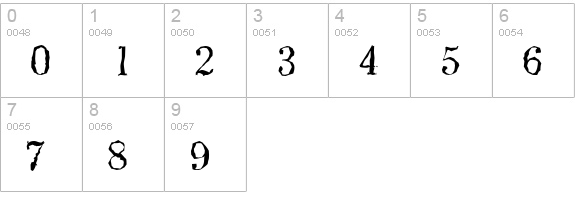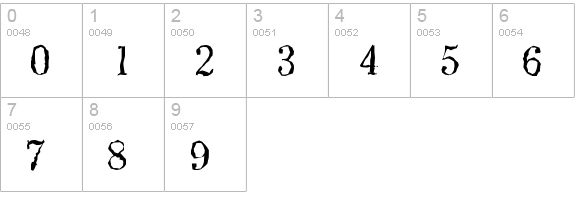
WichitaRandom-Regular Font Details
WichitaRandom-Regular is the standard, neutral variant in the WichitaRandom typeface family \xE2\x80\x94 well suited to general body text, paragraphs, and standard typographic work.
WichitaRandom-Regular font is a charming and versatile typeface that strikes the perfect balance between playfulness and professionalism. Its unique and quirky design adds a touch of whimsy to any project, making it ideal for a wide range of creative applications. This font features a delightful randomness in its letterforms, giving it a handcrafted and organic feel that sets it apart from more traditional fonts. Whether you're designing a poster, creating a logo, or crafting a greeting card, WichitaRandom-Regular is sure to make your text stand out. Best of all, WichitaRandom-Regular font is completely free to download at FontsMarket.com. So go ahead and add this delightful typeface to your collection today and let your creativity flourish!